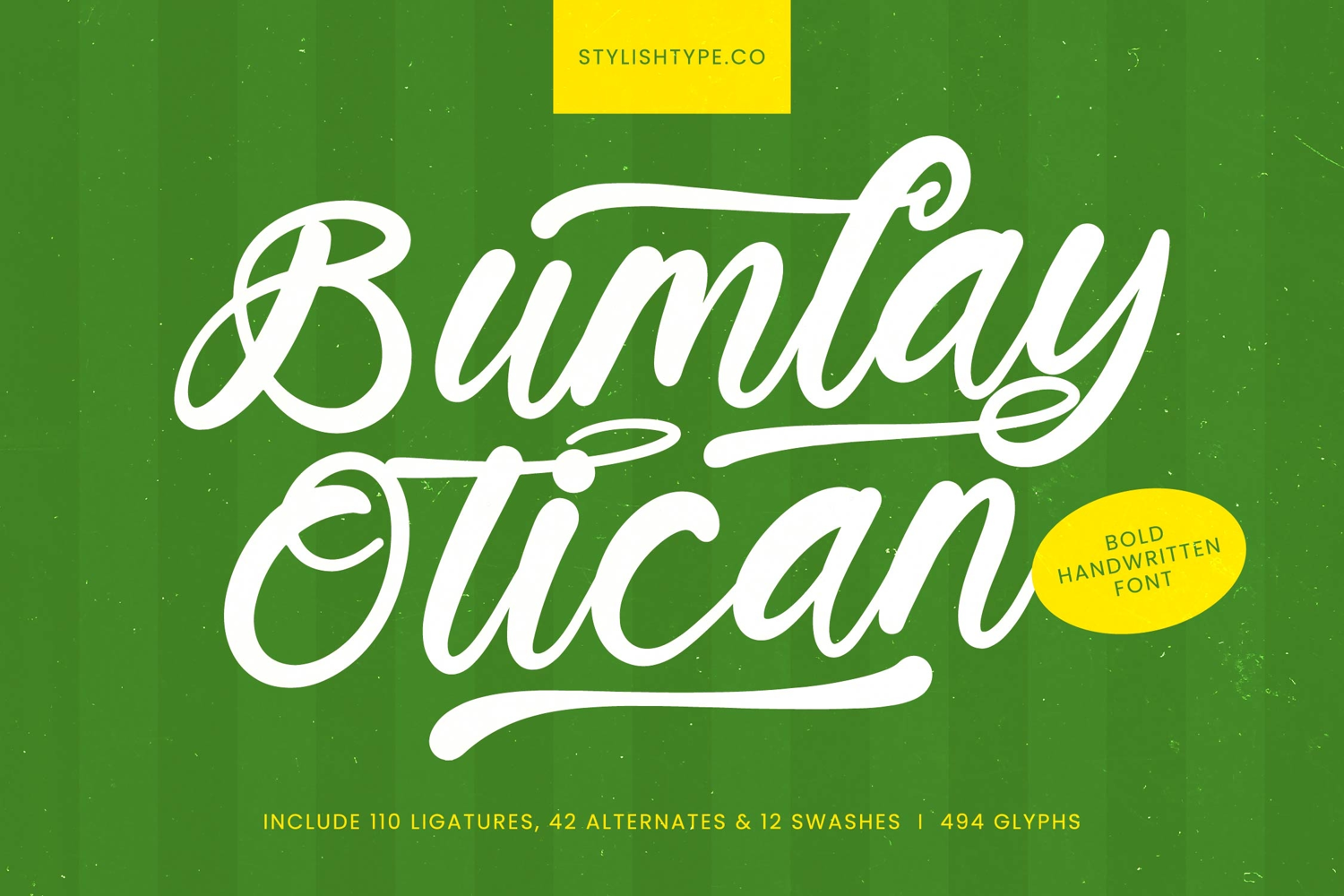
Bumlay Otican - Bold Handwritten Font
Bumlay Otican
Bumlay Otican Italic
Make a statement that cannot be ignored with Bumlay Otican - Bold Handwritten Font, a powerhouse script designed for maximum visual impact. This typeface perfectly captures the fluid energy of true hand-lettering while delivering the stability and legibility of a polished professional font. Its robust weight and smooth, confident curves instantly inject a dose of vintage charm and undeniable personality into any design, making it a stellar choice for attention-grabbing headlines.